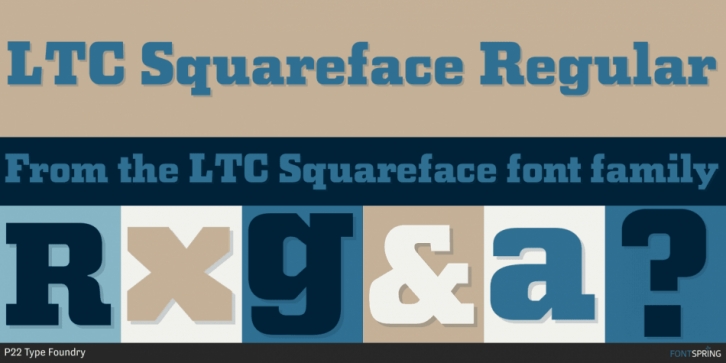
Designed by Sol Hess, LTC Squareface is a display slab font family. This typeface has two styles and was published by P22 Type Foundry.
Designed by Sol Hess in 1940 as a variation of Stymie Extrabold but with squared corners where round shapes would normally be. This striking display face is found in only some Lanston Monotype catalogs and specimens are somewhat hard to find.